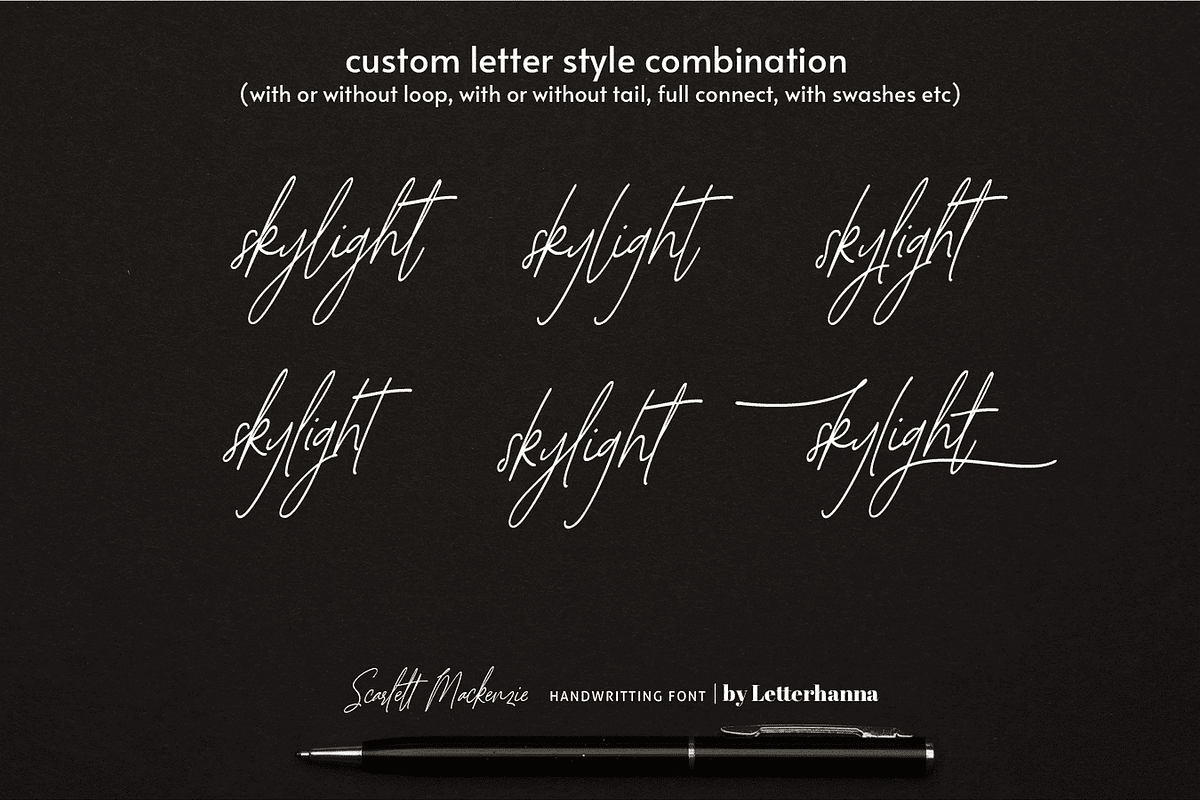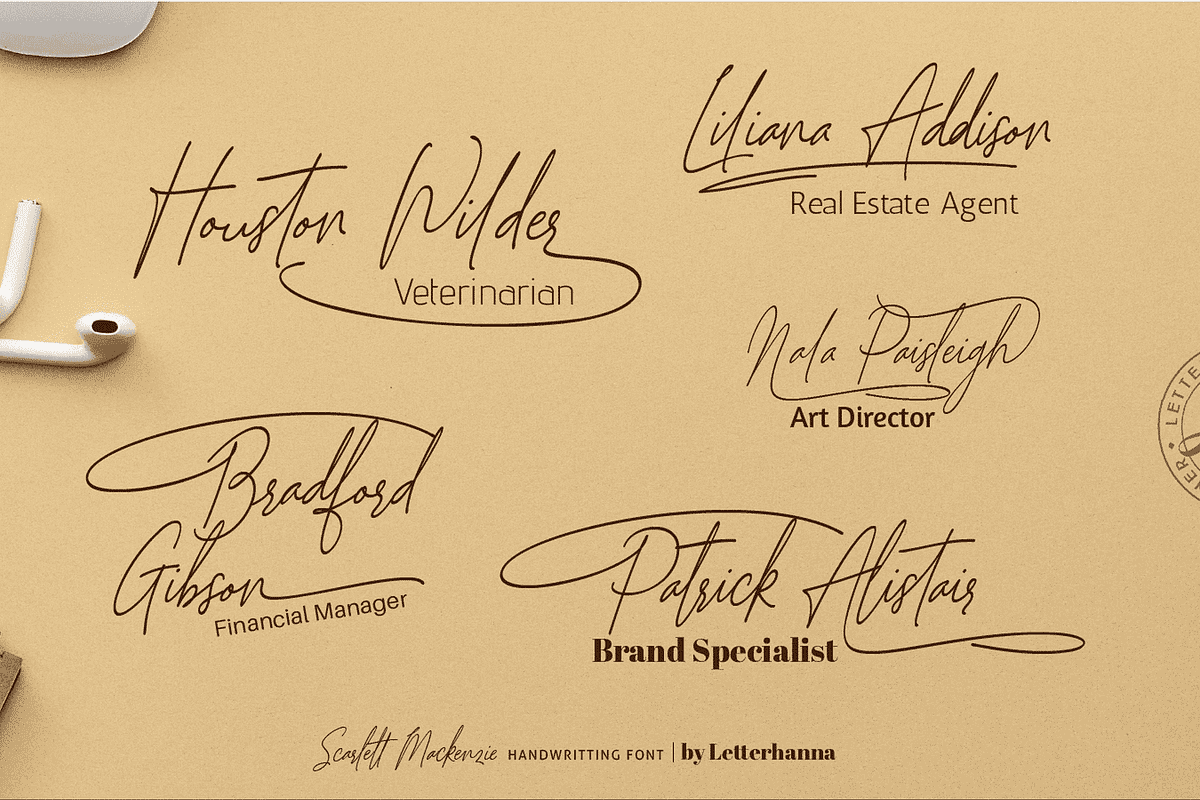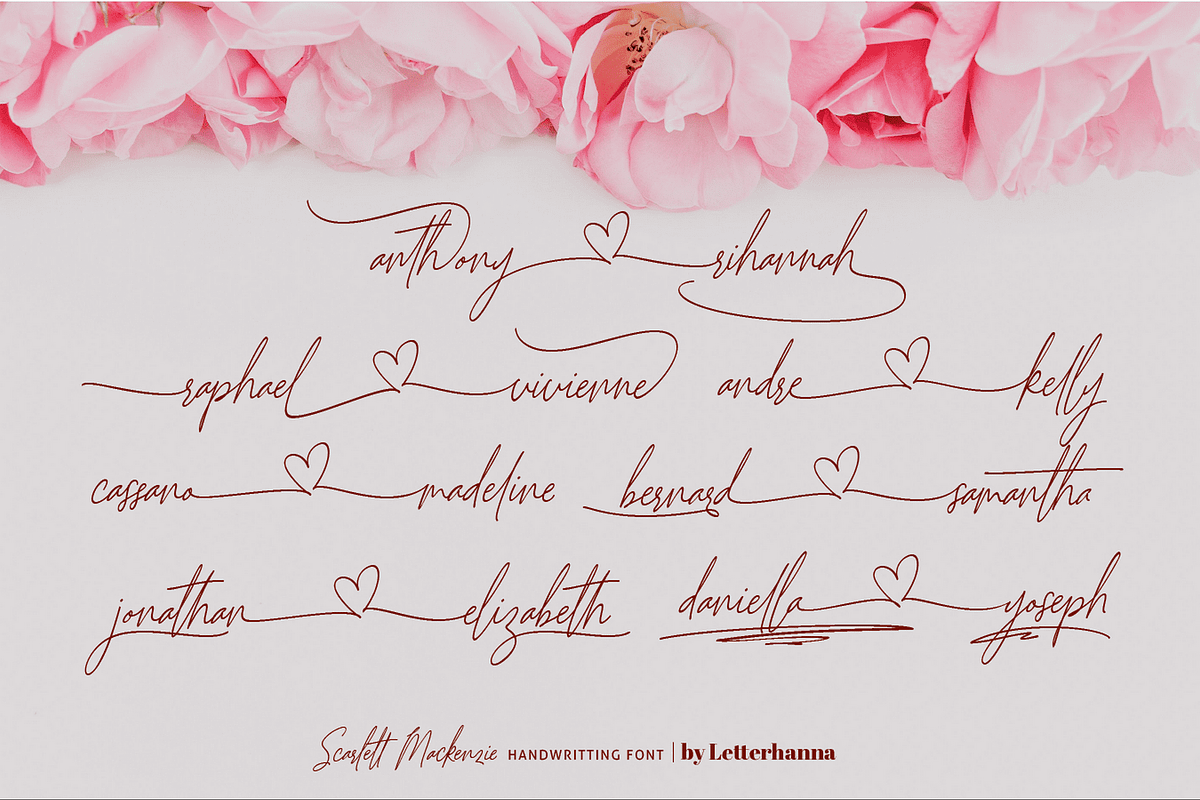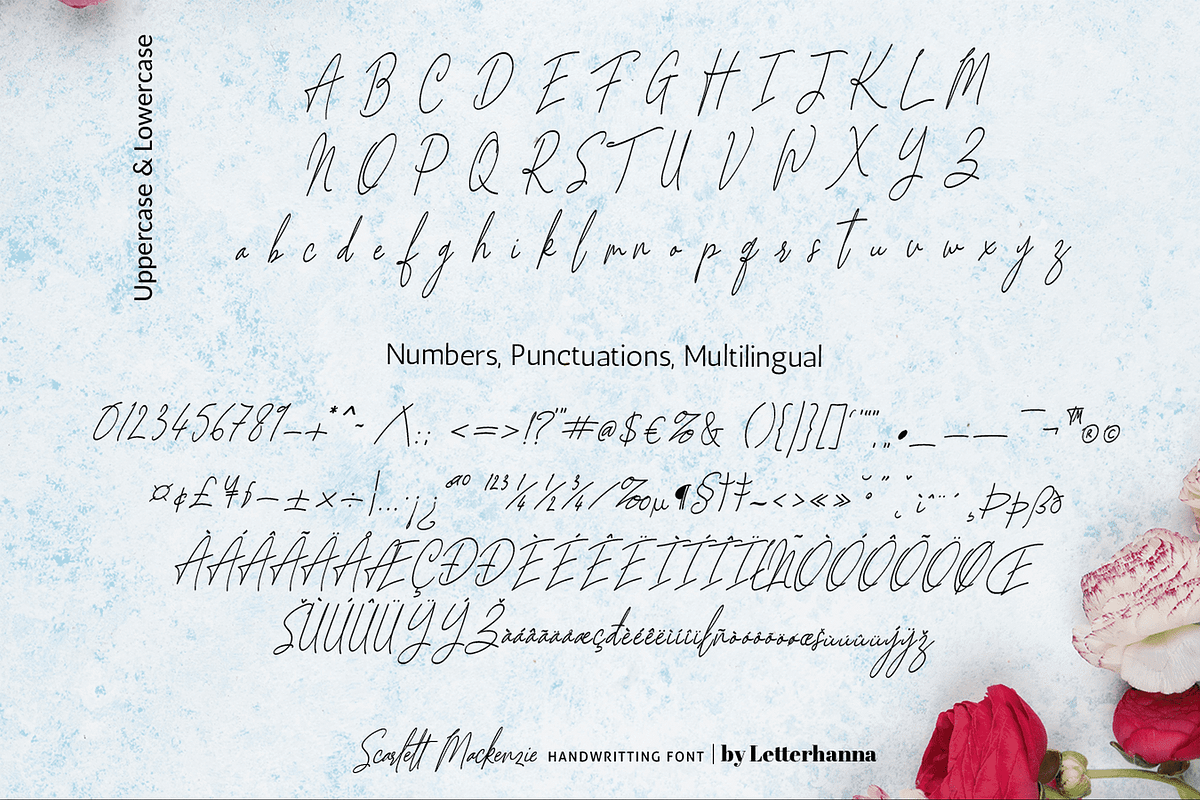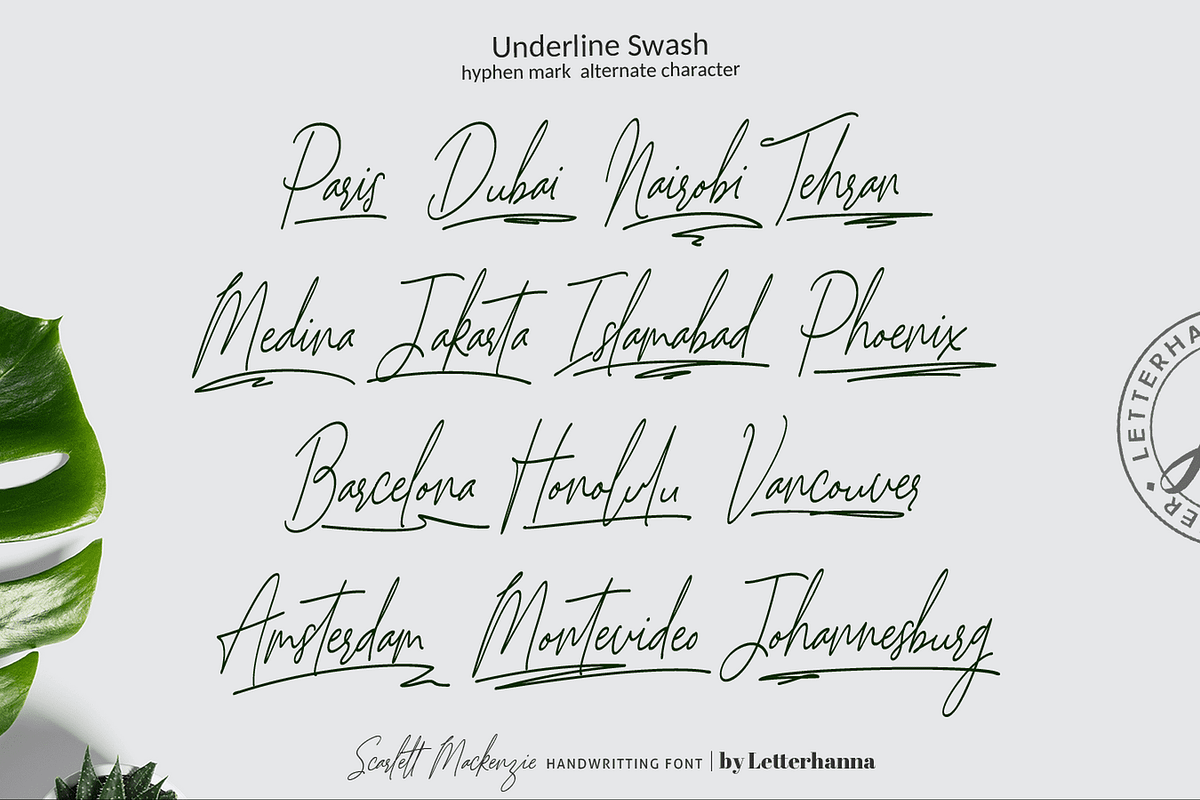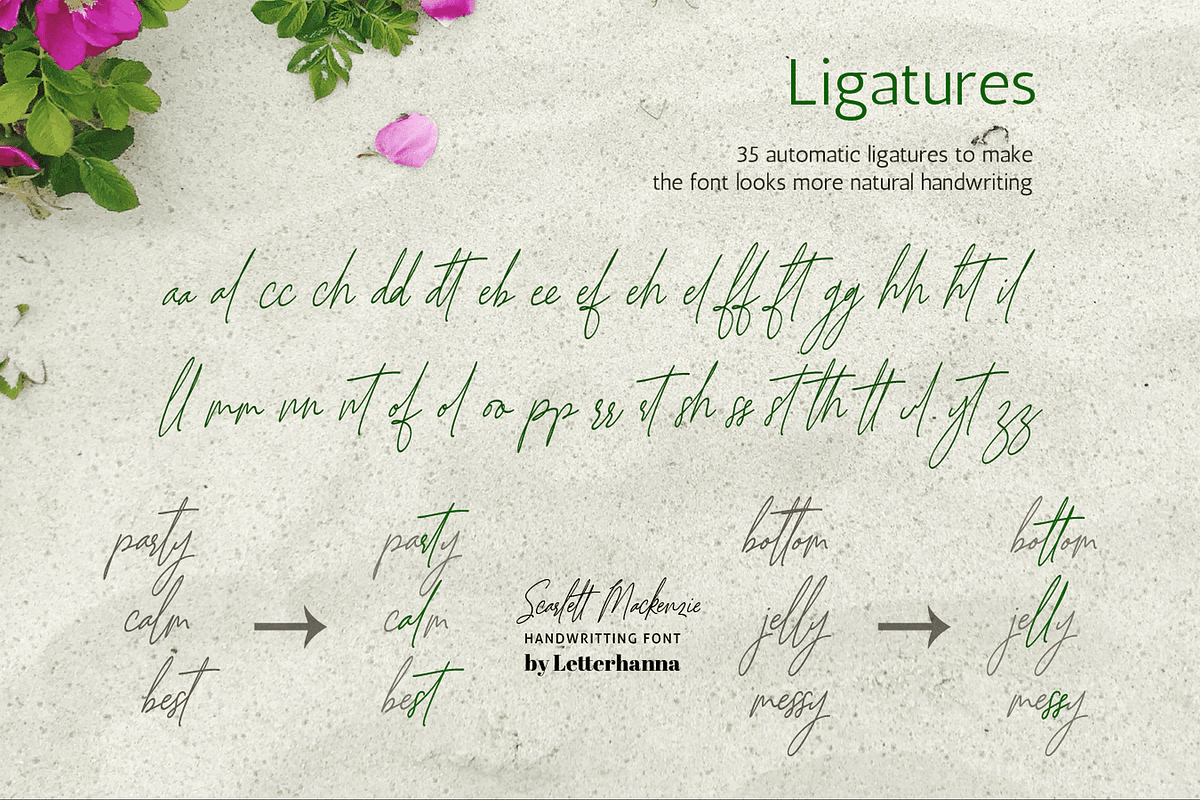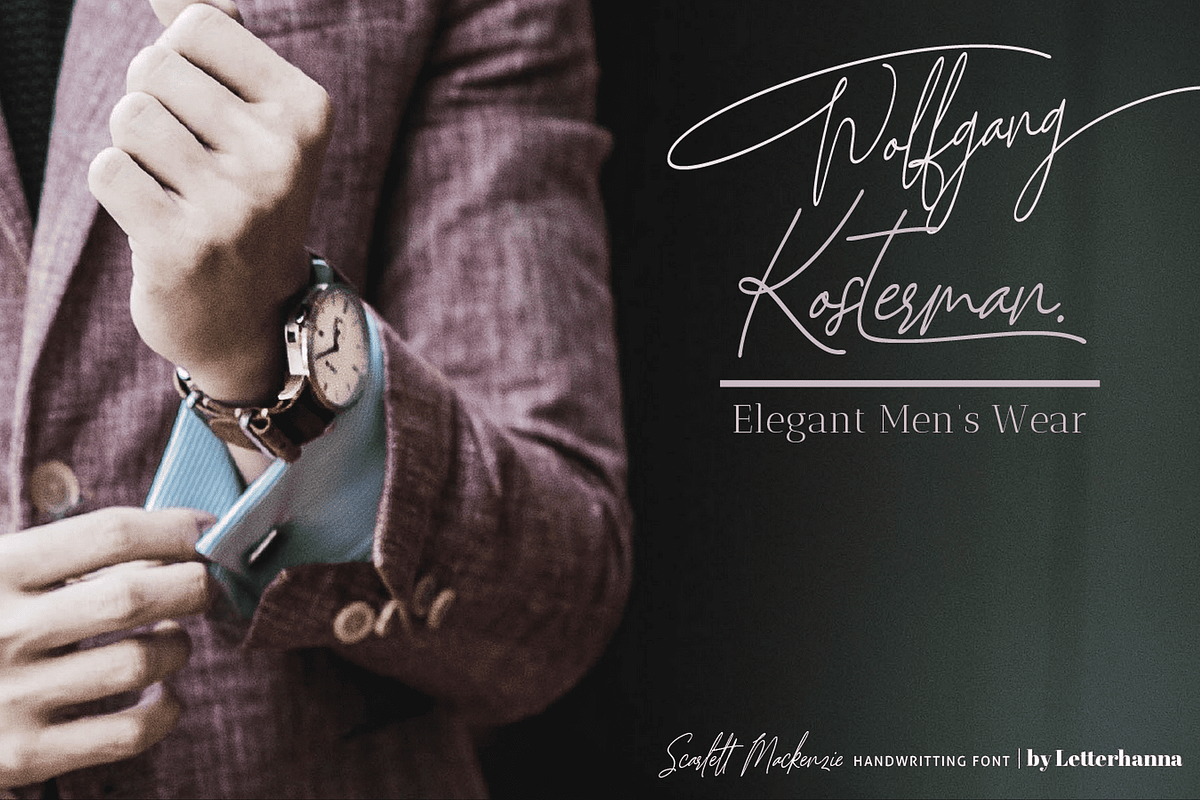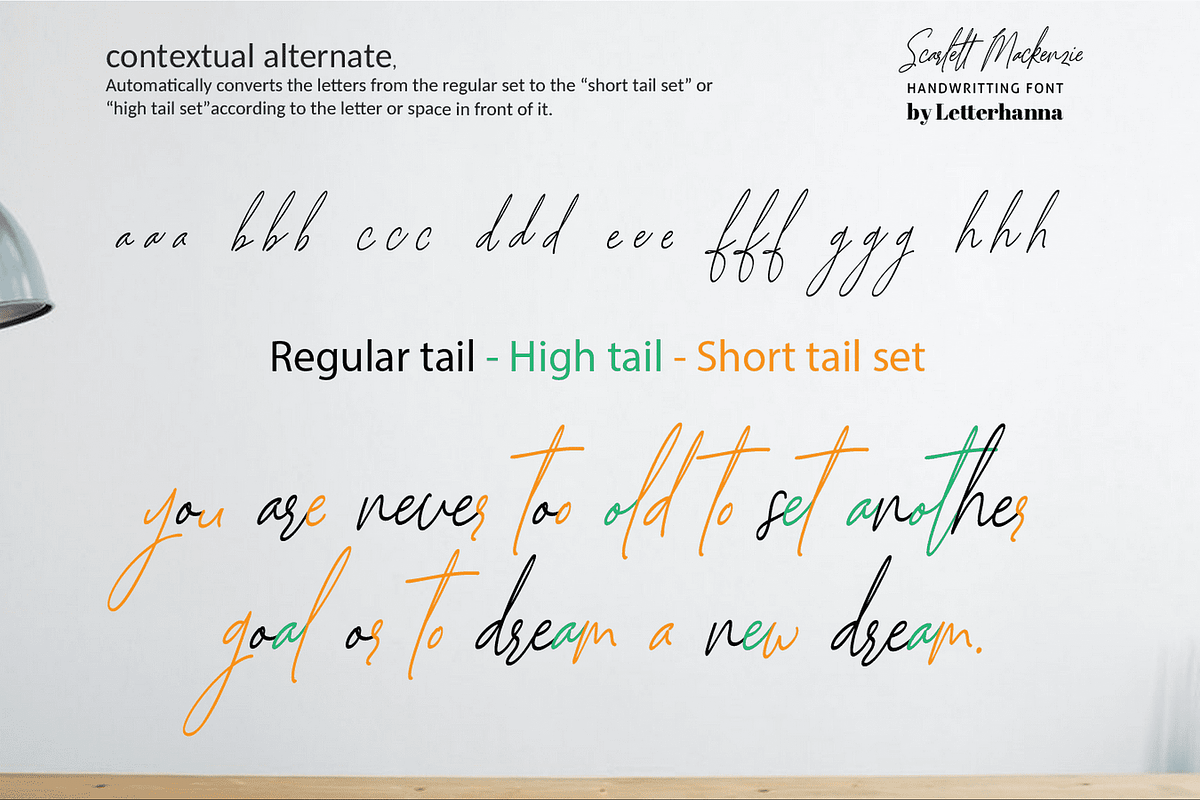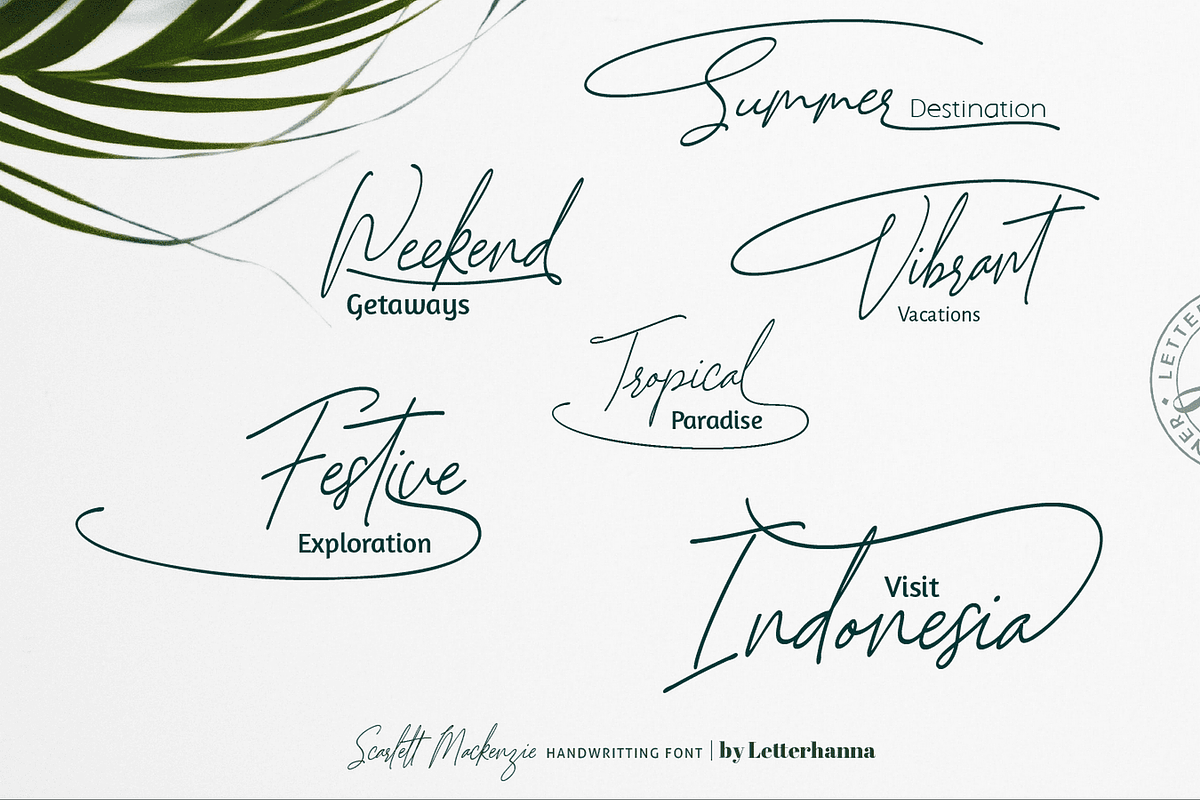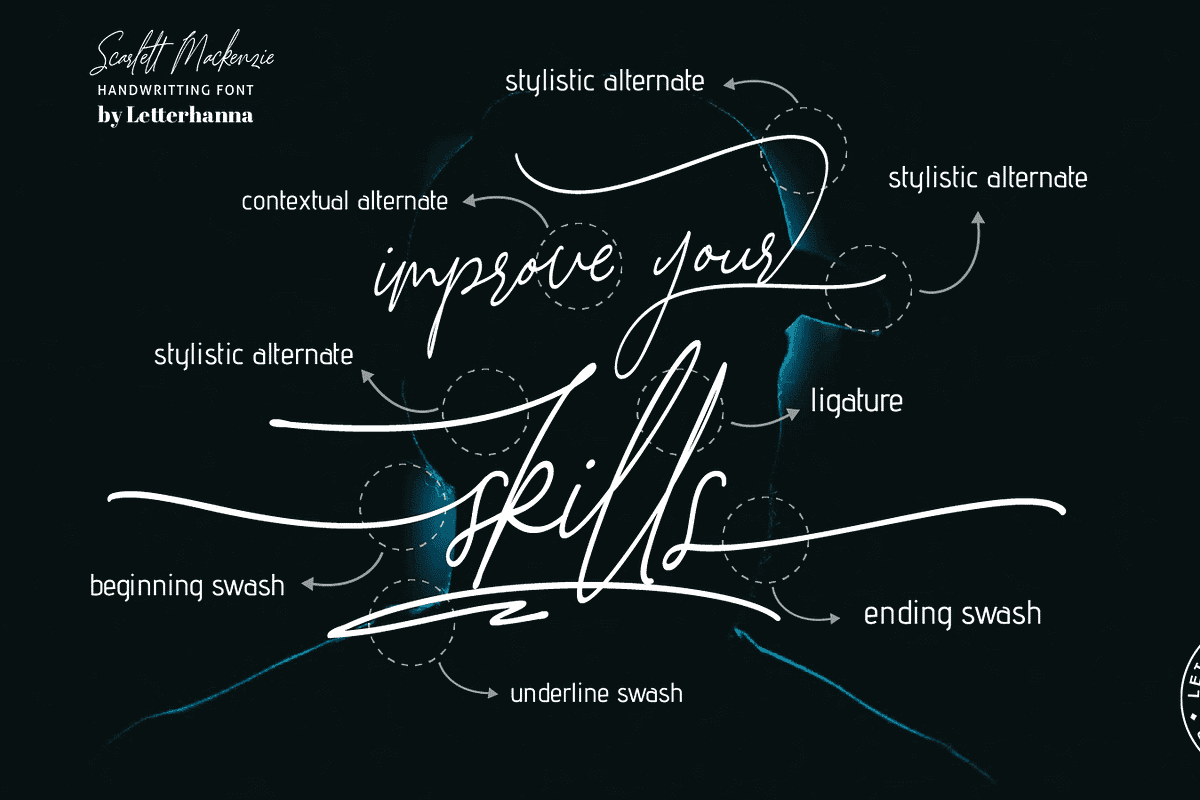
Scarlett Mackenzie Handwriting Font
Introducing our new modern handwriting signature font Scarlett Mackenzie. A sophisticated signature-style handwriting script with an uppercase swash alternatives for each letter and 7 sets of alternate for each lowercase letter.
Scarlett Mackenzie handwriting font was created to look as close to a natural handwritten script as possible by including over 35 natural-looking opentype ligatures, and a full set of lowercase alternates tail, the tail will change using "contextual alternate" according to the letter in front of it. There are also 24 underline swooshes included.
Beginning and ending swashes
Underline swashes
Stylistic alternate
Contextual alternate
Uppercase alternate